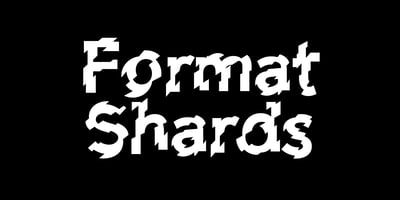
-OC Format Shards Font Family was designed by Andrew Bellamy and published by OtherwhereCollective. -OC Format Shards contains 9 styles and family package options. -OC Format Shards violates the highly regarded -OC Format Sans Bd to create something more spontaneous, visceral and expressive. Designed for when readability of copy isn’t the primary concern�but making a statement is�it’s perfect for disruption, subversion and protest. Inspiration was taken from the classic experimental font Shatter designed by Vic Carless in 1973 which was used widely in British Punk graphics of the late 1970s. In contrast to the consistently parallel angles used to distort Shatter, the characters of -OC Format Shards have been sliced instinctively, quickly and freehand giving them and resulting text a less mechanical and more visceral appearance. As a display font it has a more limited character set than the original -OC Format Sans but still includes accents for numerous languages, stylistic alternates and circled characters.